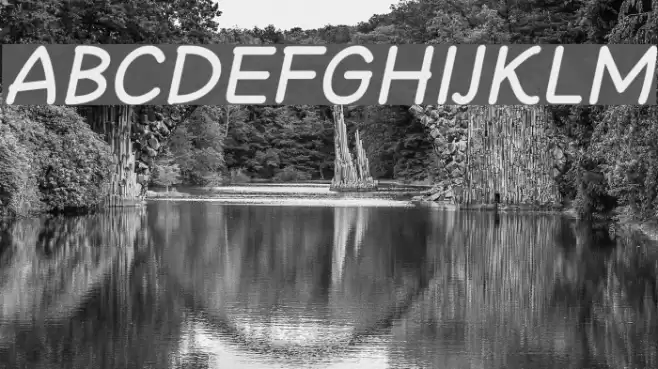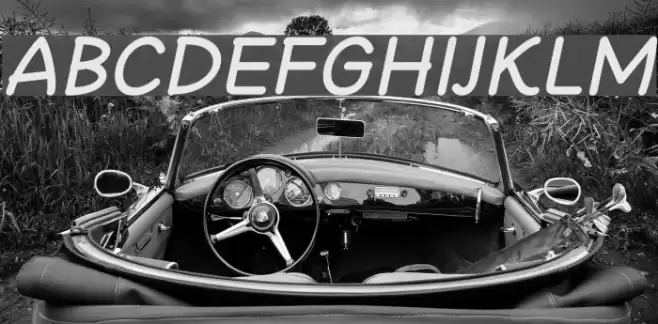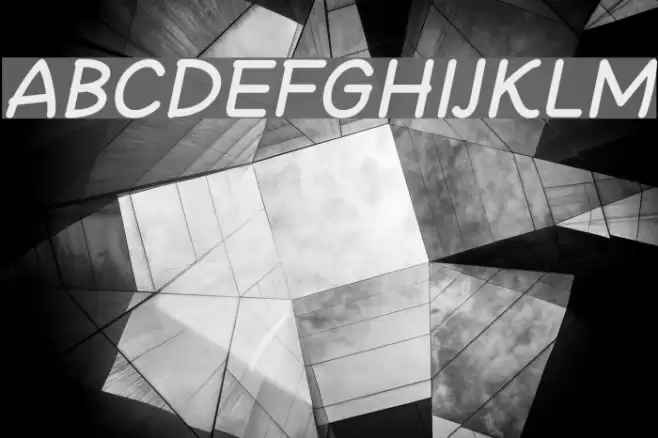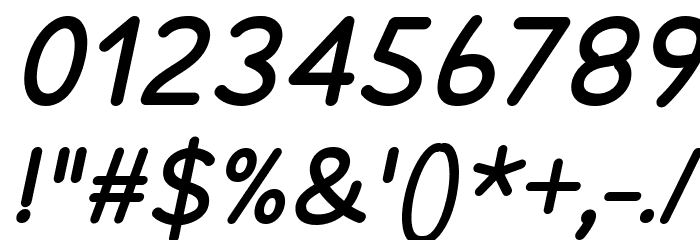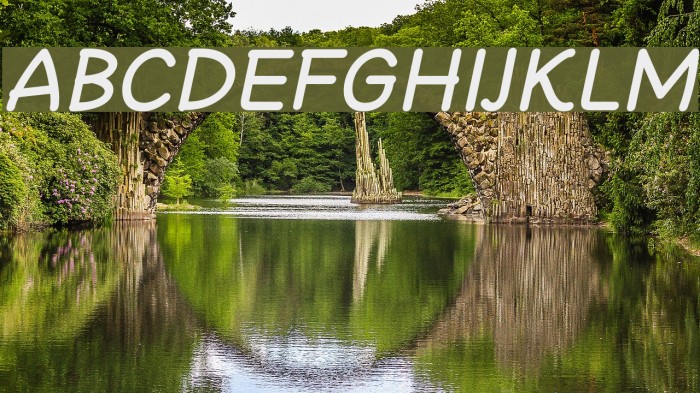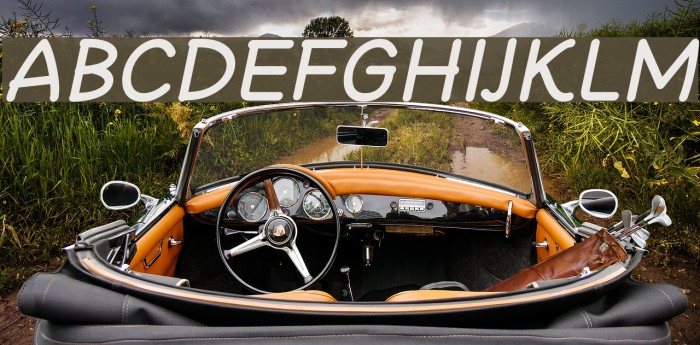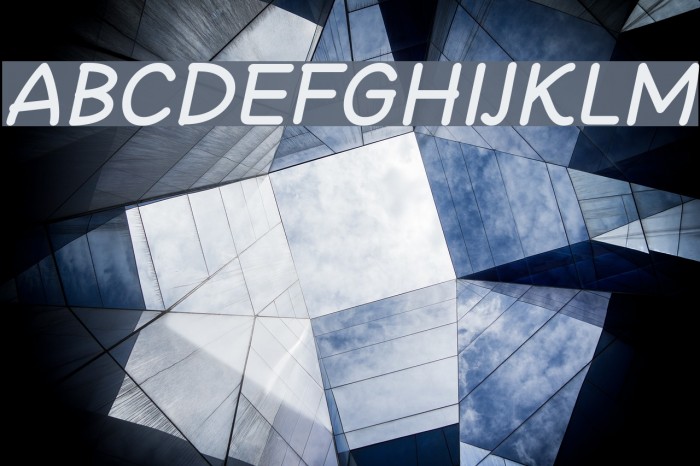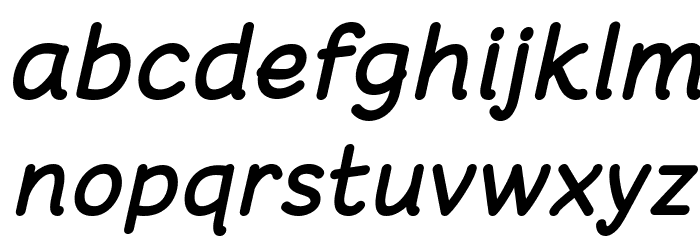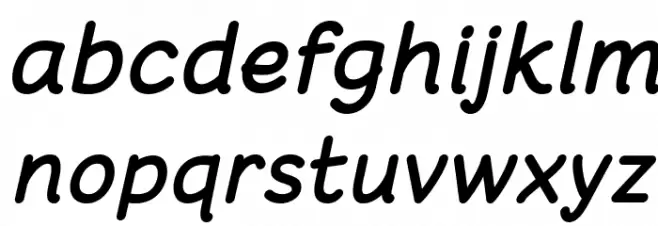
Cheeronsta Bold Italic Font
Cheeronsta Bold Italic Description
This font features a bold and italic style, characterized by its smooth, flowing curves and slightly slanted letters. The uppercase letters are well-proportioned, with a consistent stroke width that gives a sense of balance and harmony. The lowercase letters maintain a friendly and approachable appearance, with rounded edges that enhance readability. Numbers are clear and distinct, making them suitable for various applications. The special characters are designed to complement the overall style, ensuring a cohesive look across different text elements.
A bold and italic font with smooth curves and a friendly appearance from Uncategorized fonts.
- Proposed Projects: Ideal for branding projects, advertising materials, and creative designs that require a bold and dynamic touch.
- Use Case: Headlines, Logos, Advertising